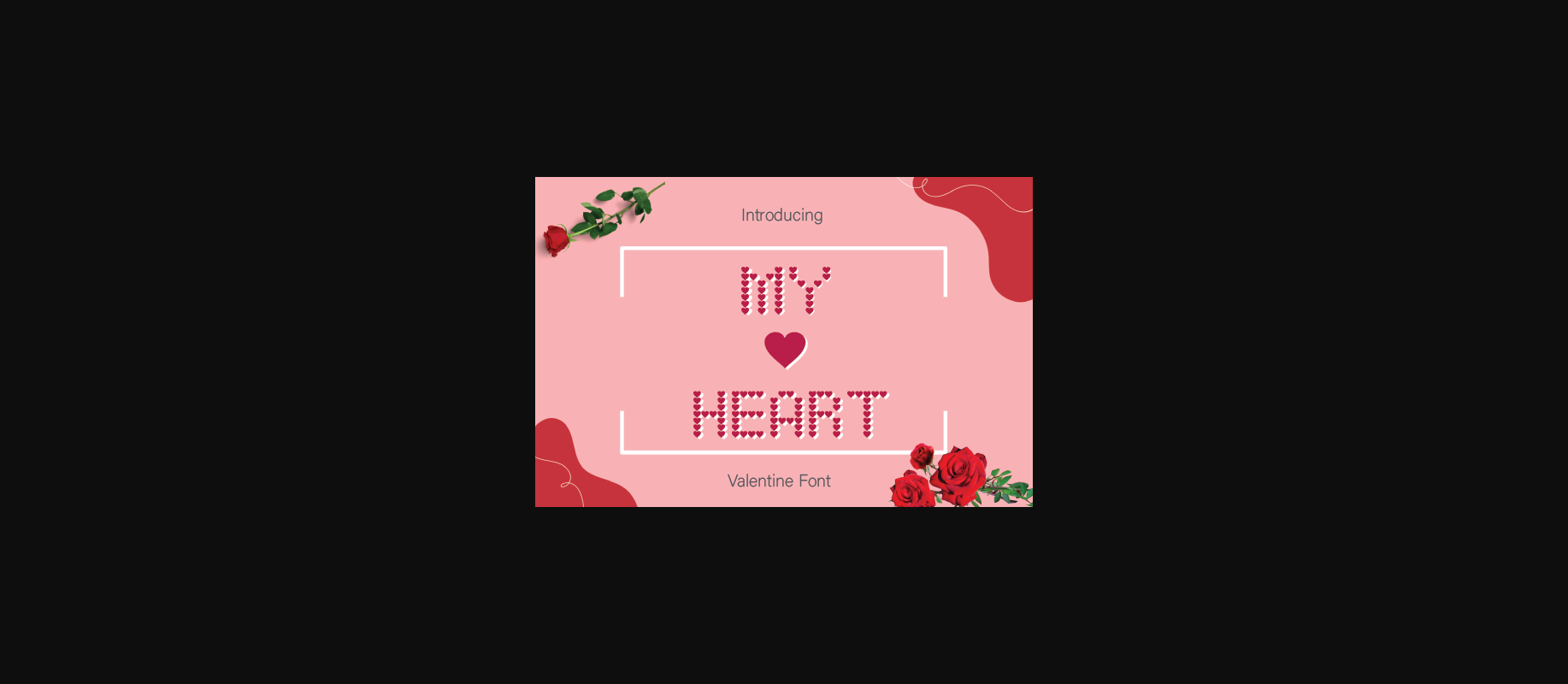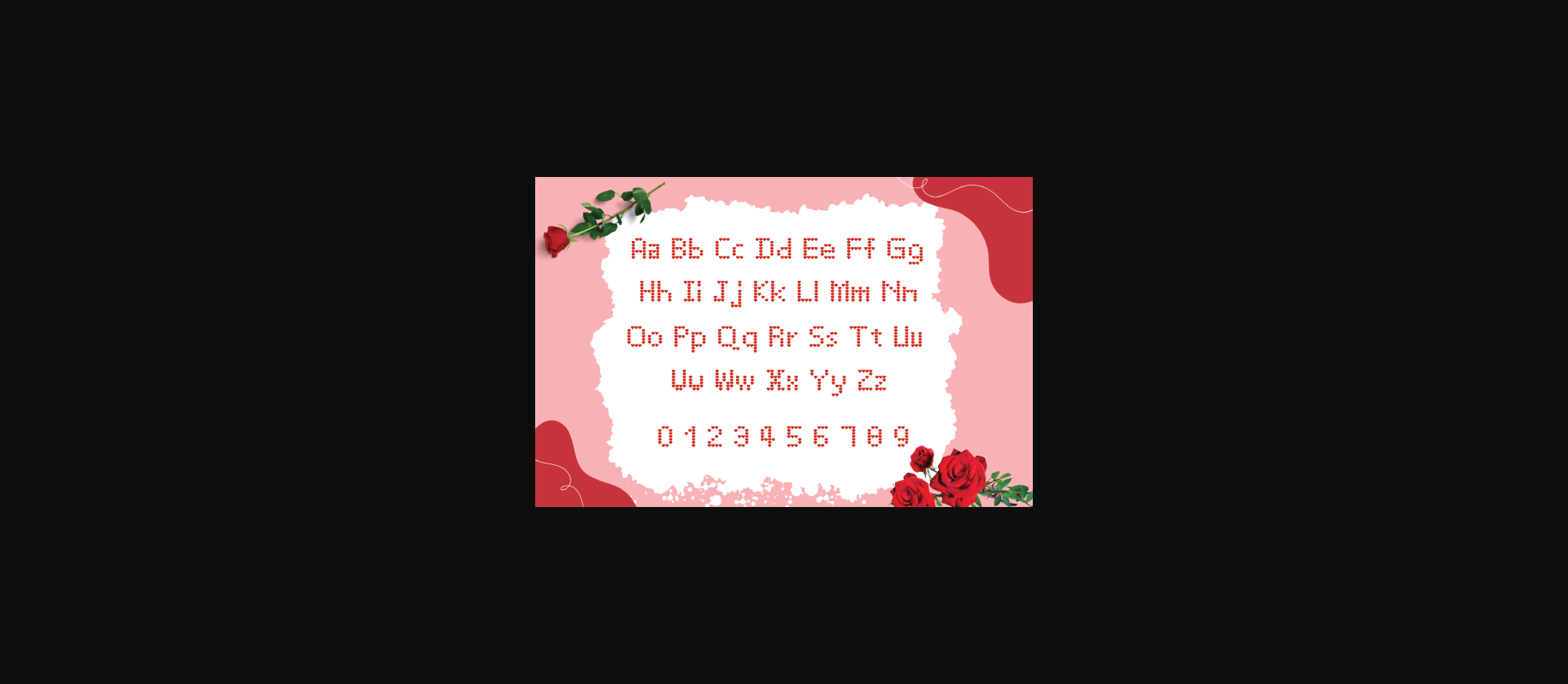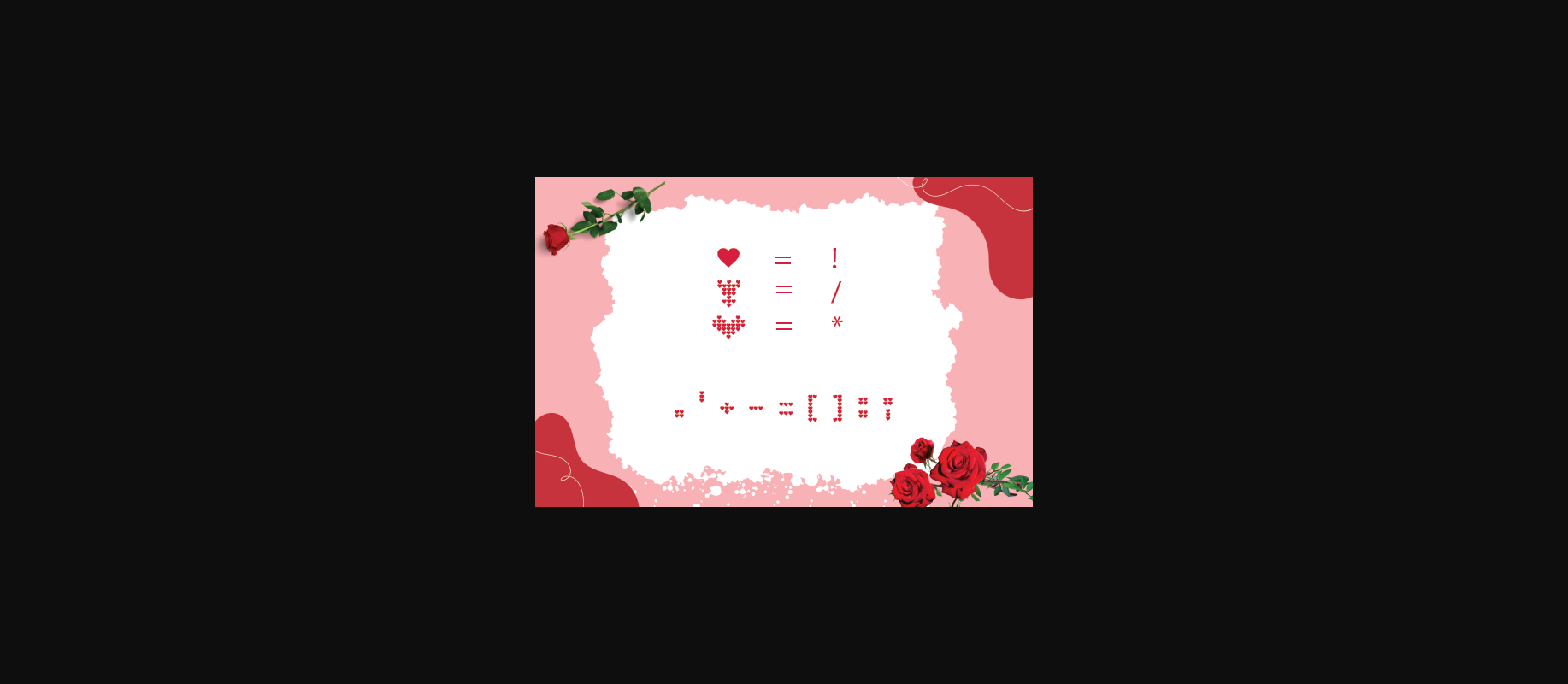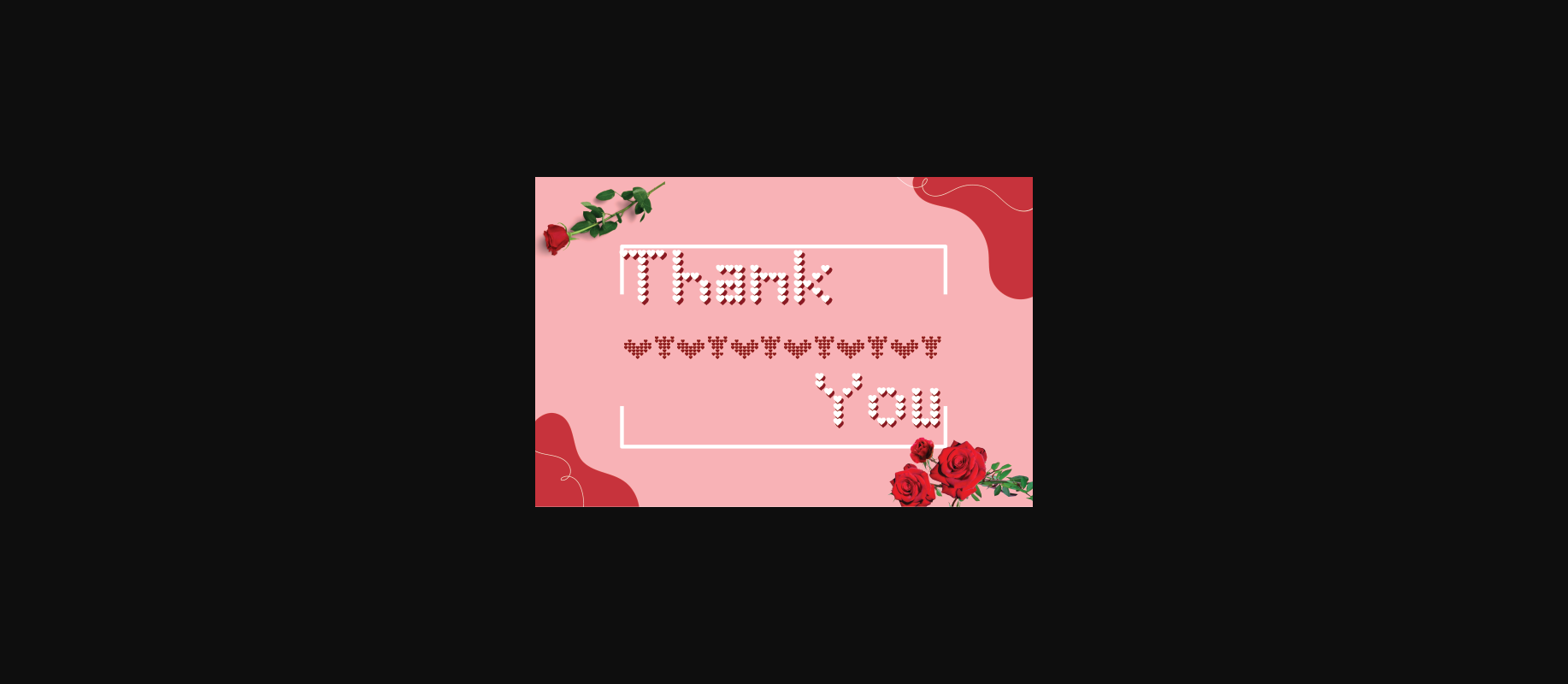
My Heart Font
About My Heart Font
My Heart is a whimsical decorative font where each letter is crafted from tiny hearts. This unique design adds a playful and heartfelt touch to your text. Perfect for special occasions, love notes, or any project that calls for a charming and romantic flair. Choose My Heart to spread love and warmth through your words.